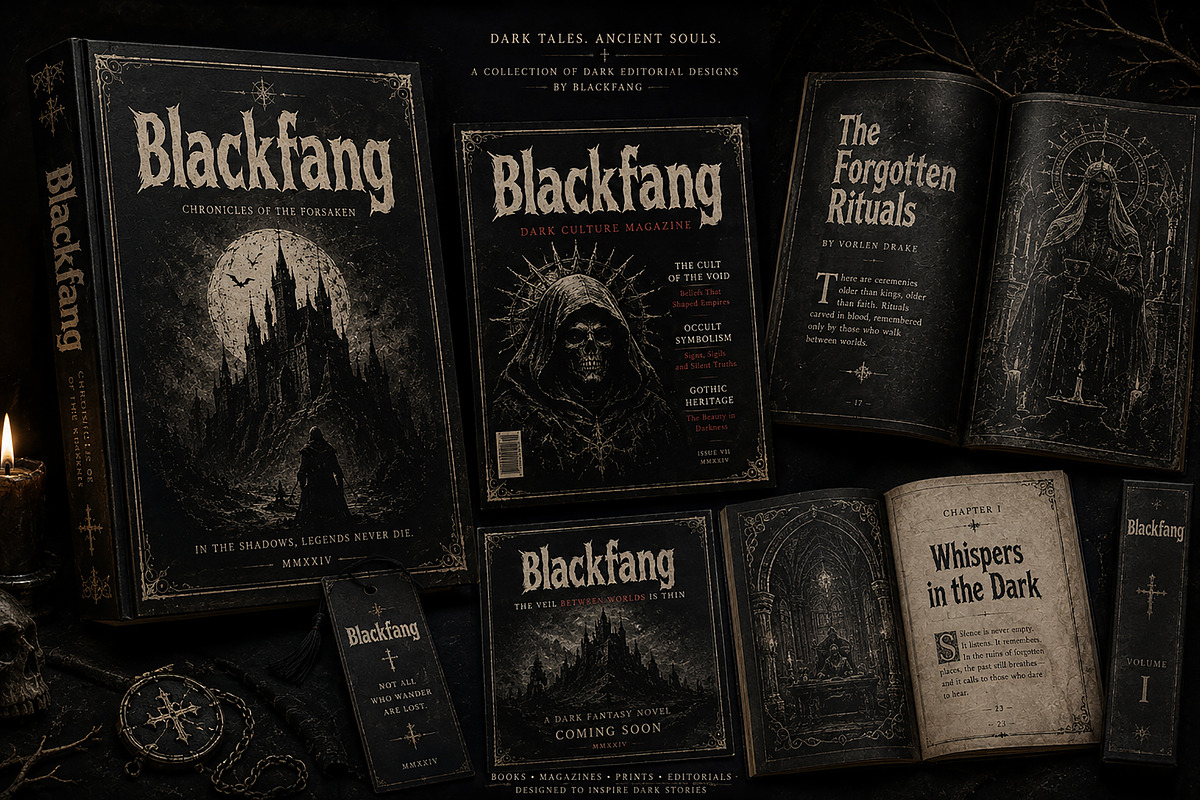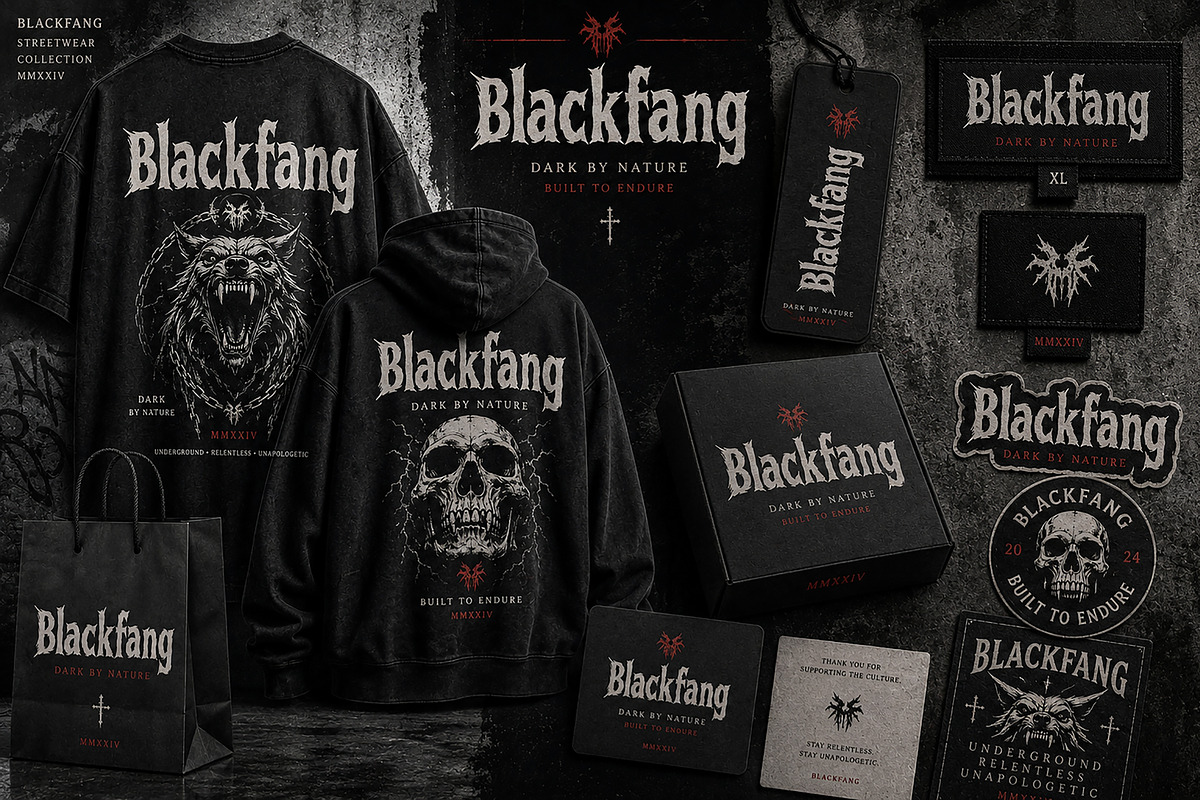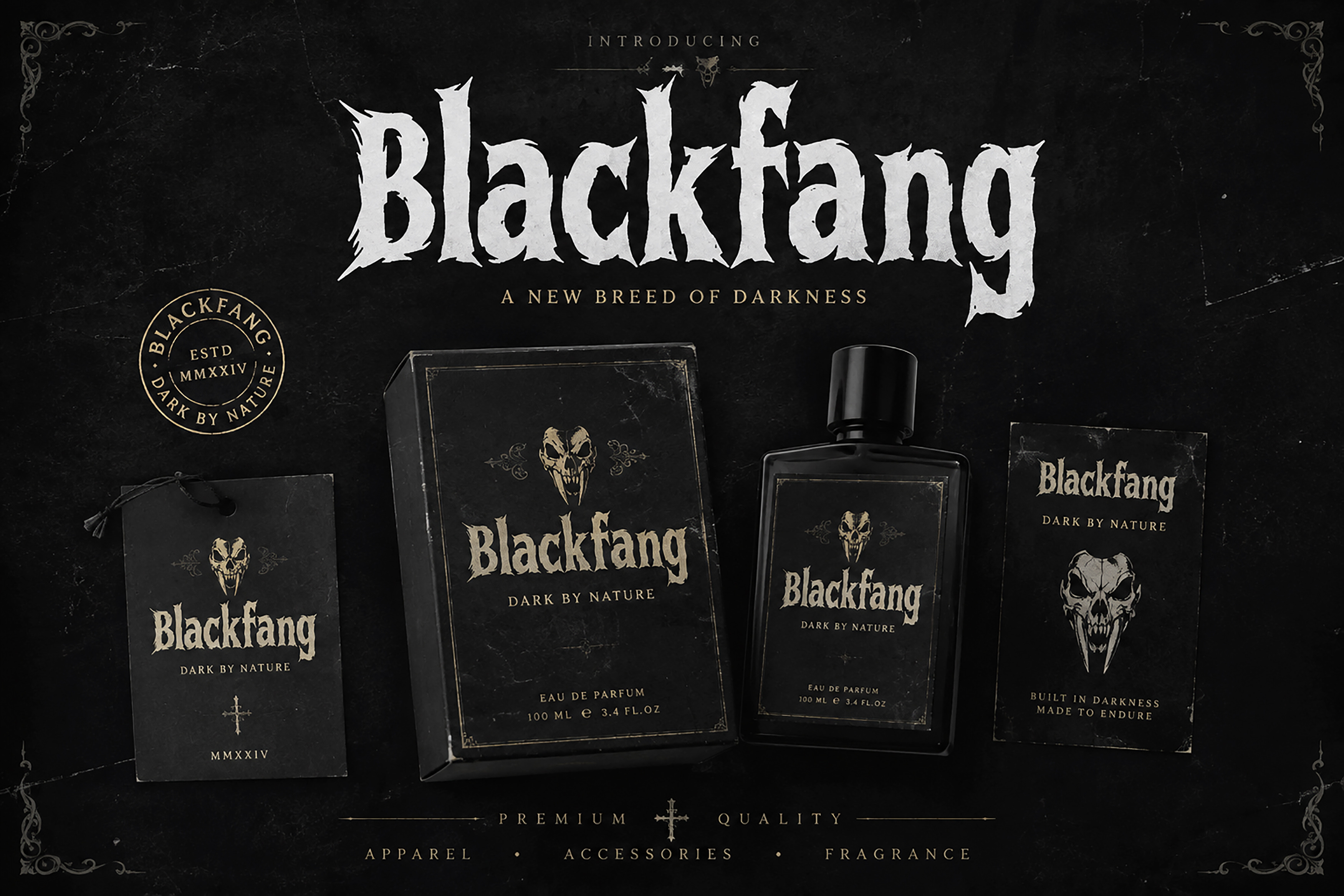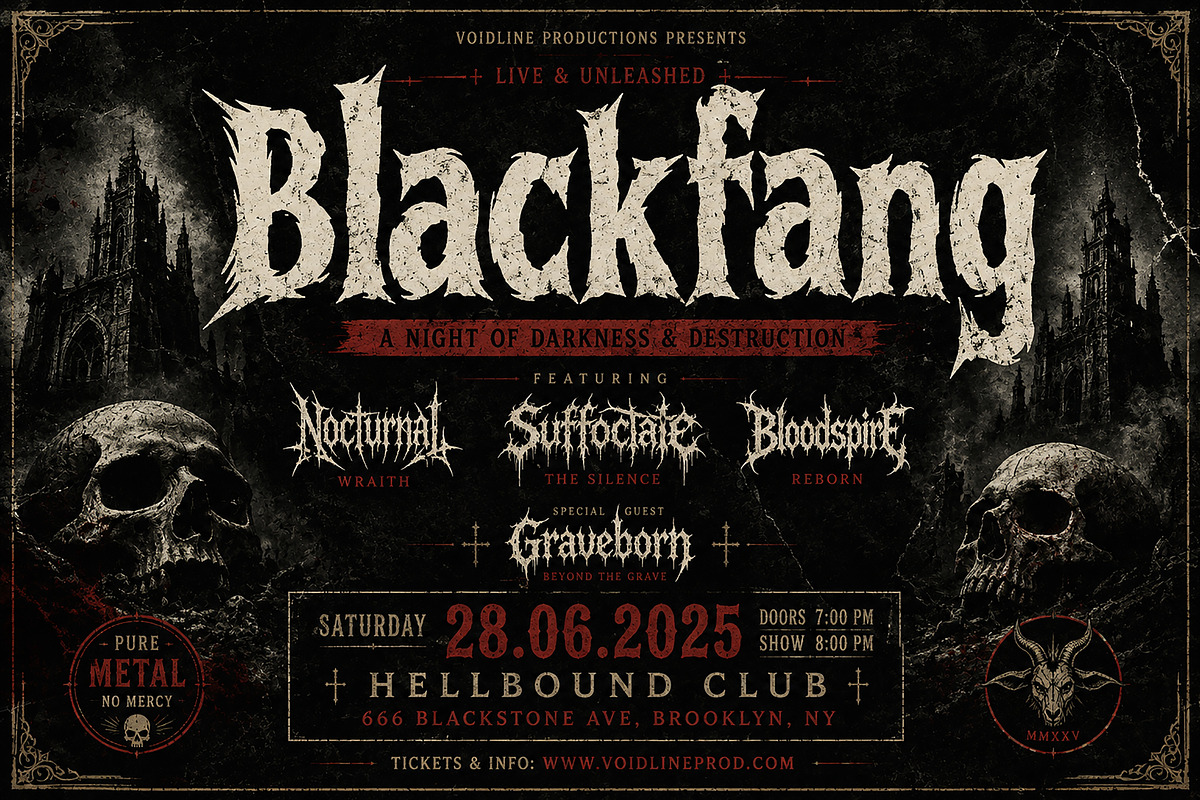
Blackfang – Gothic Blackletter Font
Blackfang – Gothic Blackletter Display Font
Blackfang is a powerful gothic display font designed for bold, dark, and rebellious visual projects. Featuring sharp, rugged, and distressed letterforms, Blackfang brings an intense medieval and underground aesthetic to your typography.
Perfect for creating eye-catching band logos, metal music artwork, album covers, posters, streetwear graphics, clothing brands, book covers, horror designs, gothic branding, labels, packaging, merchandise, and editorial artwork.
Its strong and aggressive appearance makes Blackfang an excellent choice whenever your design needs a dark, mysterious, raw, and unforgettable personality.
Gothic & Dark Branding
Metal & Rock Music Artwork
Band Logos
Album Covers
Concert Posters
Streetwear & Apparel
T-Shirt Designs
Horror & Dark Fantasy Projects
Book & Magazine Covers
Labels & Badges
Posters & Print Design
Alternative & Underground Branding
Merchandise Designs
Font Name: Blackfang
Style: Gothic / Blackletter / Distressed / Dark Display Font
Best For: Headlines, Logos, Branding, Posters & Display Typography
Blackfang is built to make your designs look darker, stronger, and more distinctive.